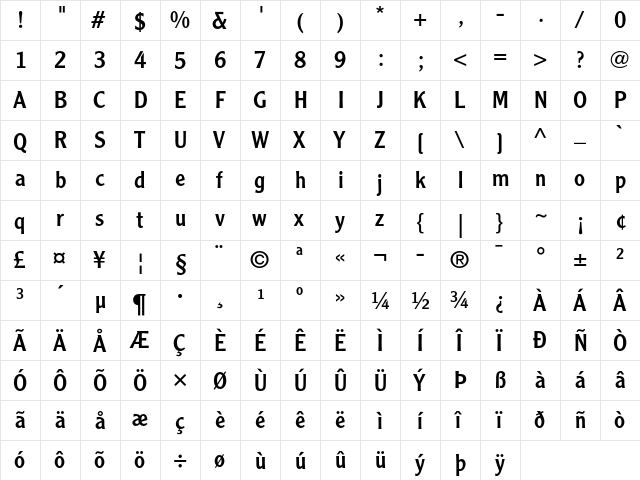
Clearface Gothic LH 55 Roman
Design Context for Clearface Gothic LH Typeface
Clearface Gothic LH has the quiet confidence of well-executed sans-serif typography: versatile, unobtrusive, and dependable at any size.
Font Pairing: Works well alongside a characterful serif or display font that can carry the expressive load while Clearface Gothic LH handles the functional copy.
Pro Tip: Pair Clearface Gothic LH with a display or serif font for headlines — its neutral character makes it an excellent supporting player in complex typographic systems.